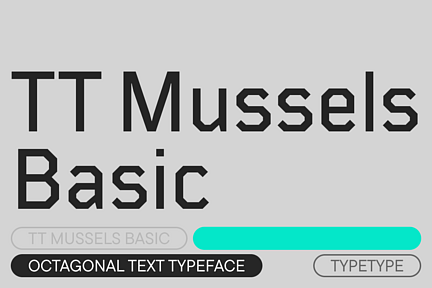
TT Mussels Thin
When designing TT Mussels, we paid great attention to the possibility of imposing large arrays of text, and we can responsibly state that TT Mussels is a rare type of technological text fonts. Dynamic contrast is widely implemented in TT Mussels which is most noticeable in the Black styles. You can also find other signs of respect for traditional text fonts in the TT Mussels design, such as the trace of pen movement which is historically typical for antiquas.